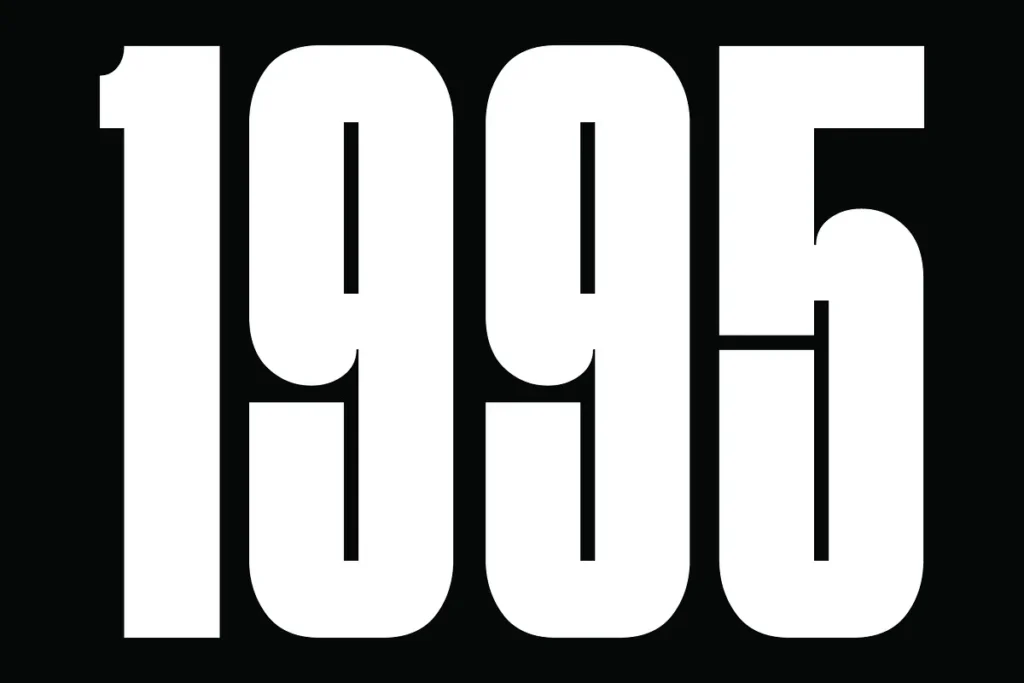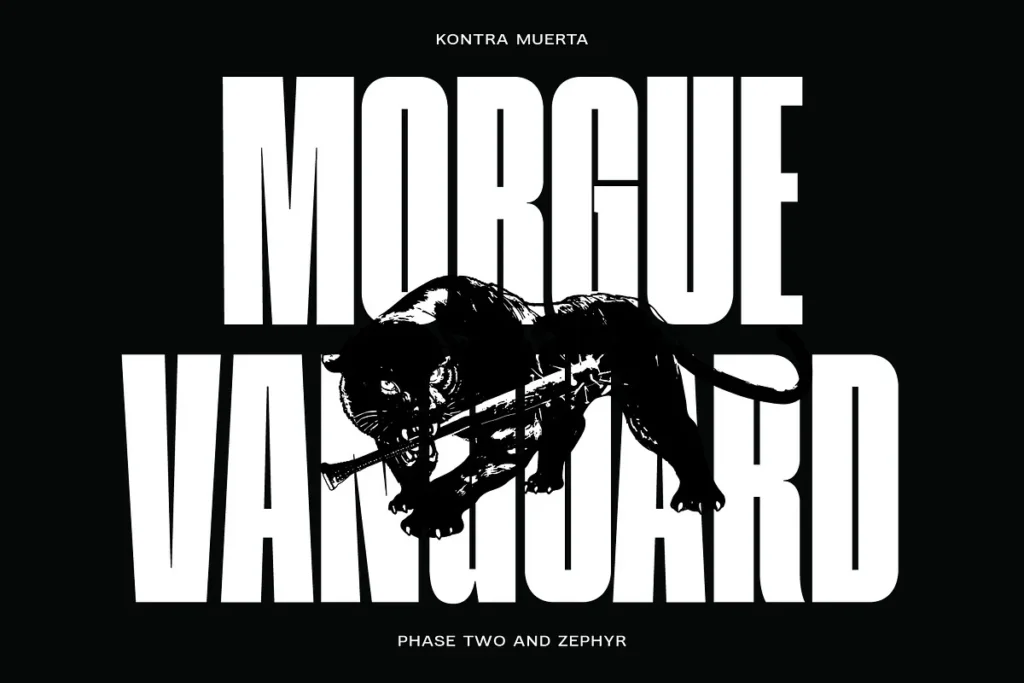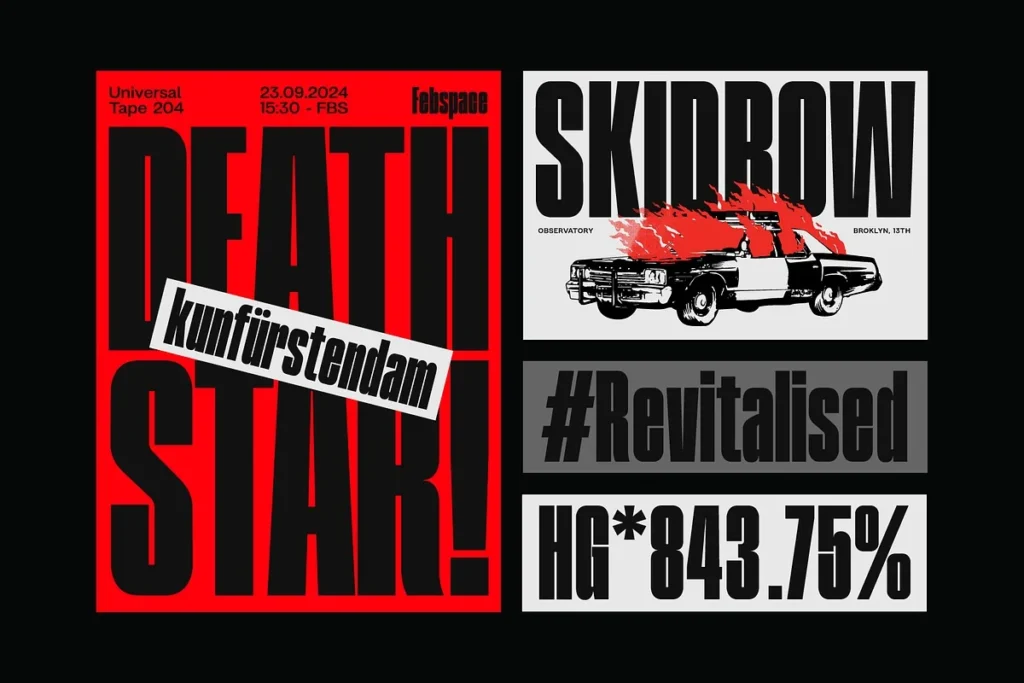
Machro Condensed Typeface Font was created with strength and dynamism in mind. This typeface is ideal for highlighting important design elements in both print and digital media thanks to its bold characters.
Available in two styles (Regular and Slanted), FBS Machro Condensed offers versatility in application. The Regular style is ideal for body text and headlines.
This font adds a modern touch of elegance to any project while also being highly legible due to its clear details and narrow proportions. Whether for branding, posters,